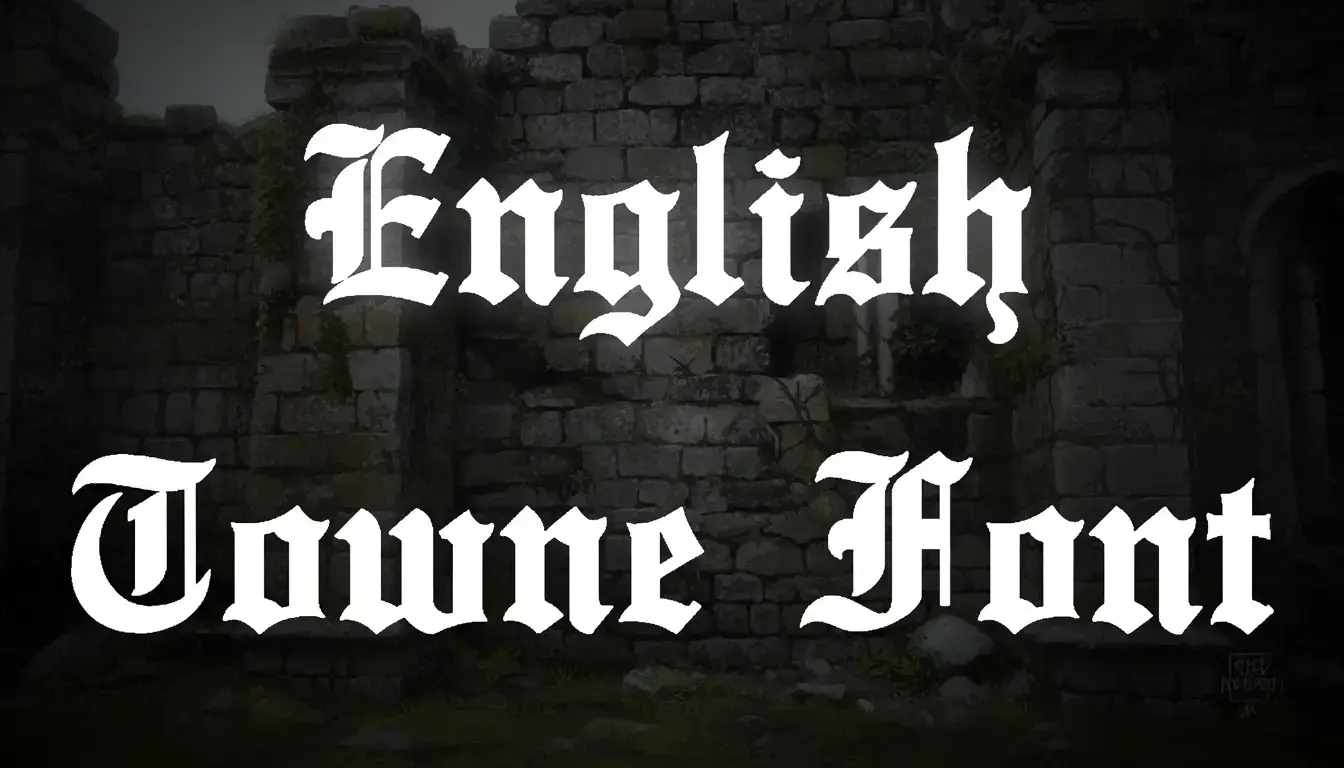
English Towne Font
English Towne is a gothic font. Sharp, dark and dramatic, it follows the blackletter tradition of old European manuscripts. It's a free download, and you can try it with your own text in the preview above first.
What You Can Type With English Towne
With complete upper and lowercase letters and all ten digits, English Towne is ready for real wording, not just a single headline. Everyday marks like &, !, ? and @ are there too. Thanks to its accented letters, it also works for Spanish, French, German, Portuguese and Italian, not just English.
Where English Towne Works Best
Think of English Towne for tattoos, metal band logos and dark fantasy titles. Blackletter is very hard to read in all caps, so type in normal upper and lowercase.
Does English Towne support accented letters?
Yes. English Towne includes the accented letters needed for Spanish, French, German, Portuguese and Italian, so it works for more than just English.